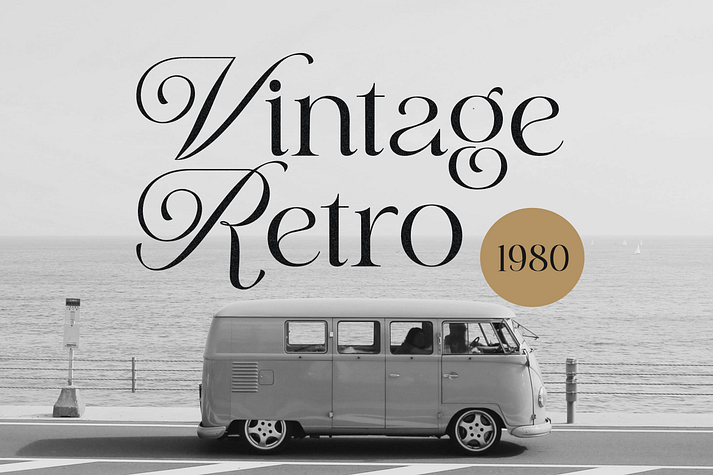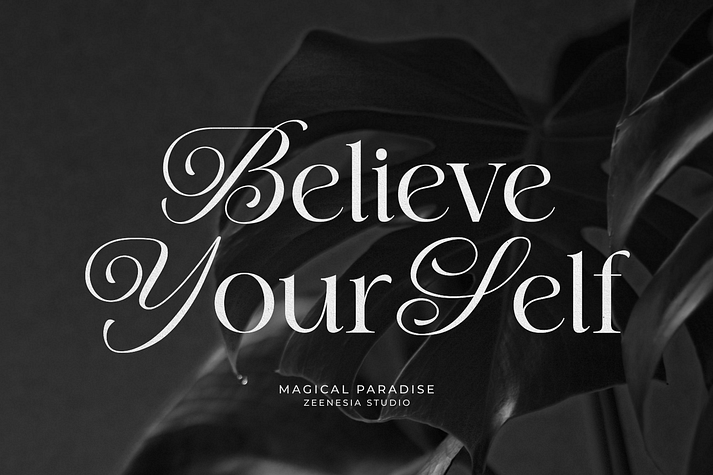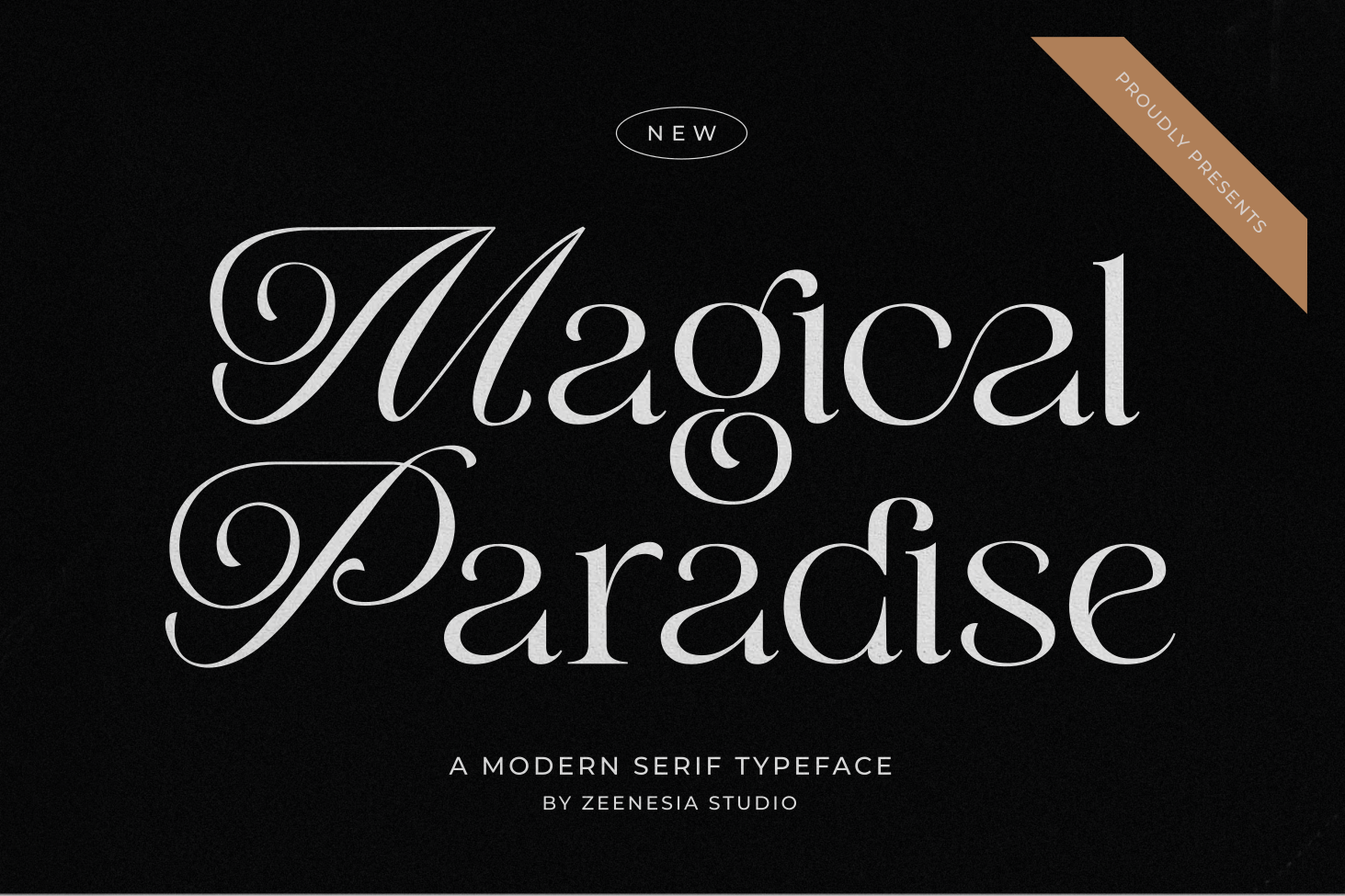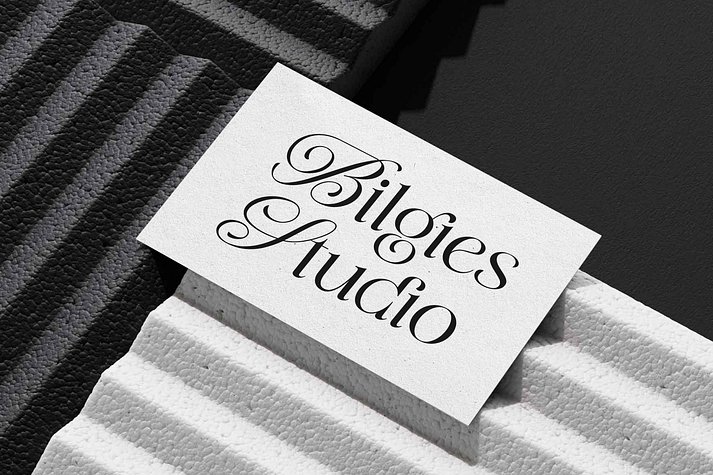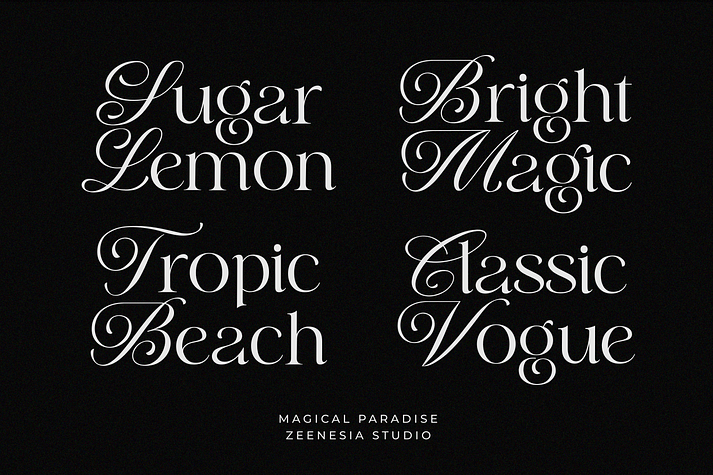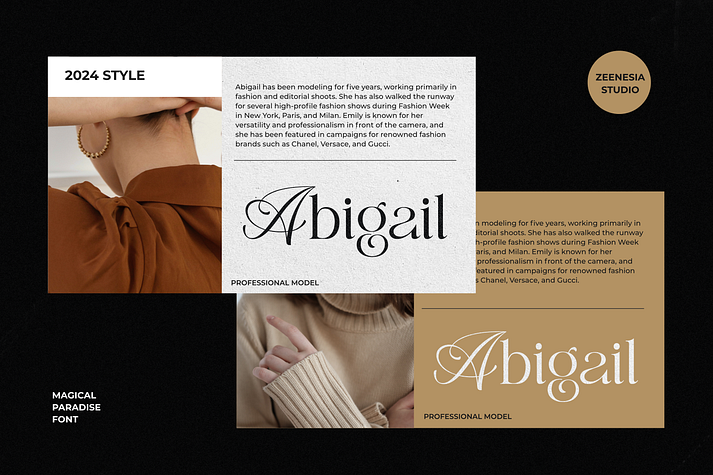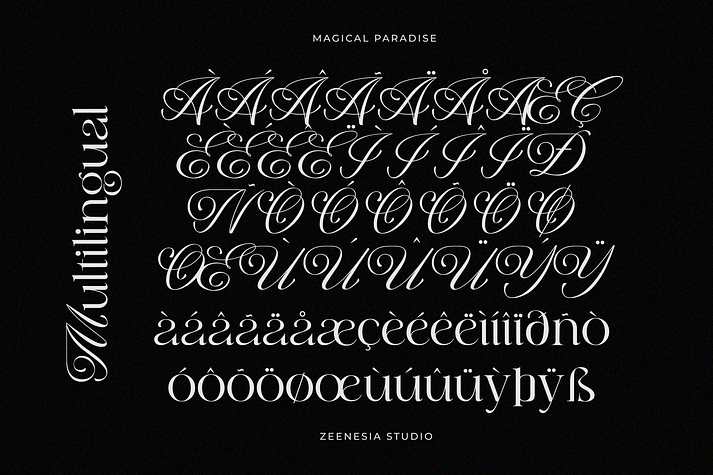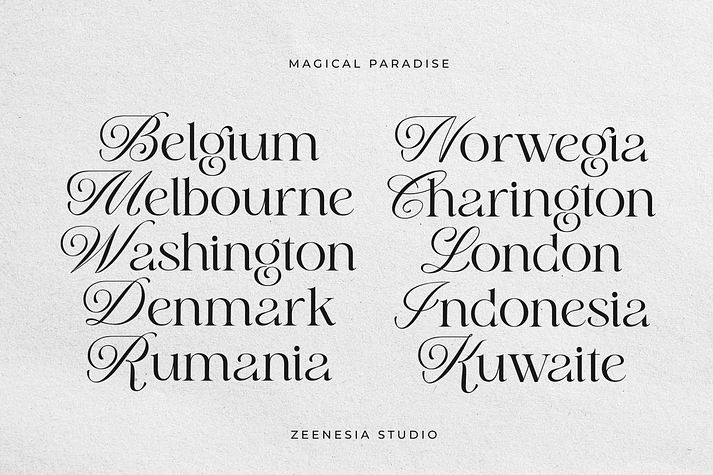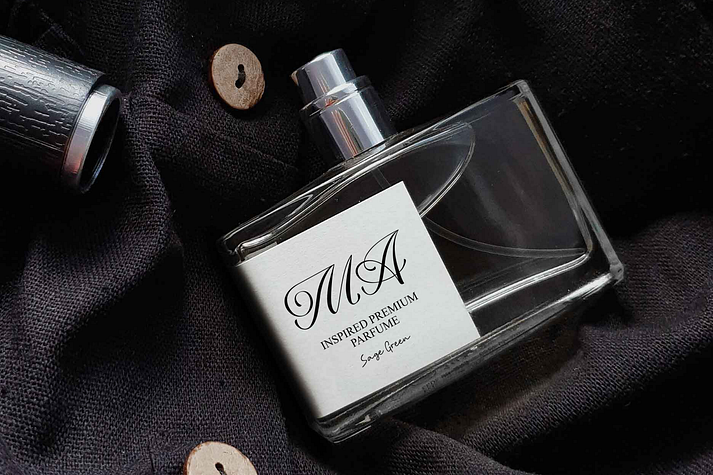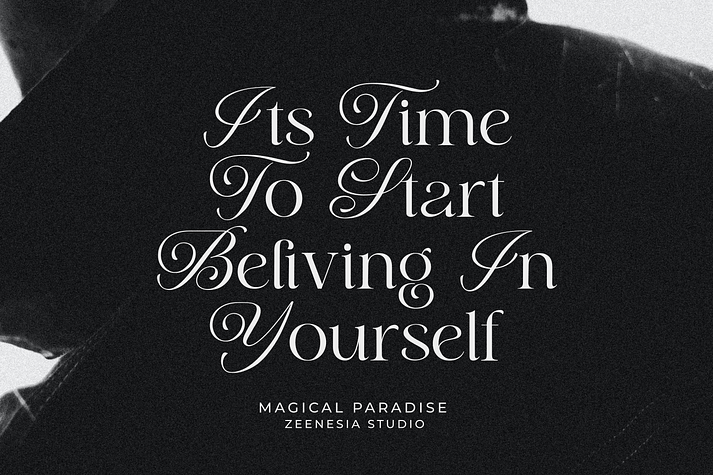
Magical Paradise
Magical Paradise is a display serif font family published by Zeenesia Studio.
Introducing Magical Paradise. Magical Paradise is a modern display font with serif combine with script style. It’s modern and classic font with a unique and deference look . Perfect if you need a dose of fun in your project. Perfect for editorial projects, Logo design, web font, clothing branding, product packaging, magazine headers, or simply as a stylish text overlay to any background image.
• Multilingual